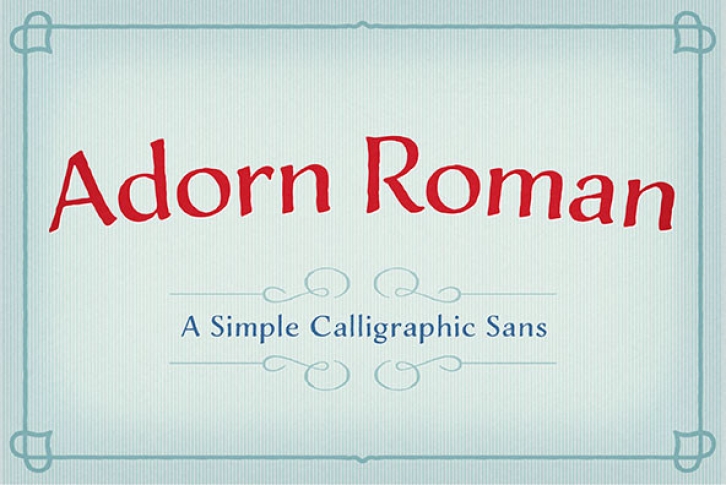
Adorn Roman is one of twenty fonts available in the Adorn family of seven display fonts, four script designs, monograms, ornaments, illustrations, banners, frames, and catchwords.
Adorn Roman is both a display and text typeface marked by its traditional calligraphic hand. Technically it is a humanist sans, with tapering stems and high contrast in its thicks and thins. It was created with a chisel-edged calligraphy pen, and even digitized it has the look of what a designer might create with a calligraphic tool. With more texture and character than you’d typically find in body text, it brings a softer, warmer look for small groupings of words. The lowercase adds a practicality to the collection with its ability to convey information without straining the eye.